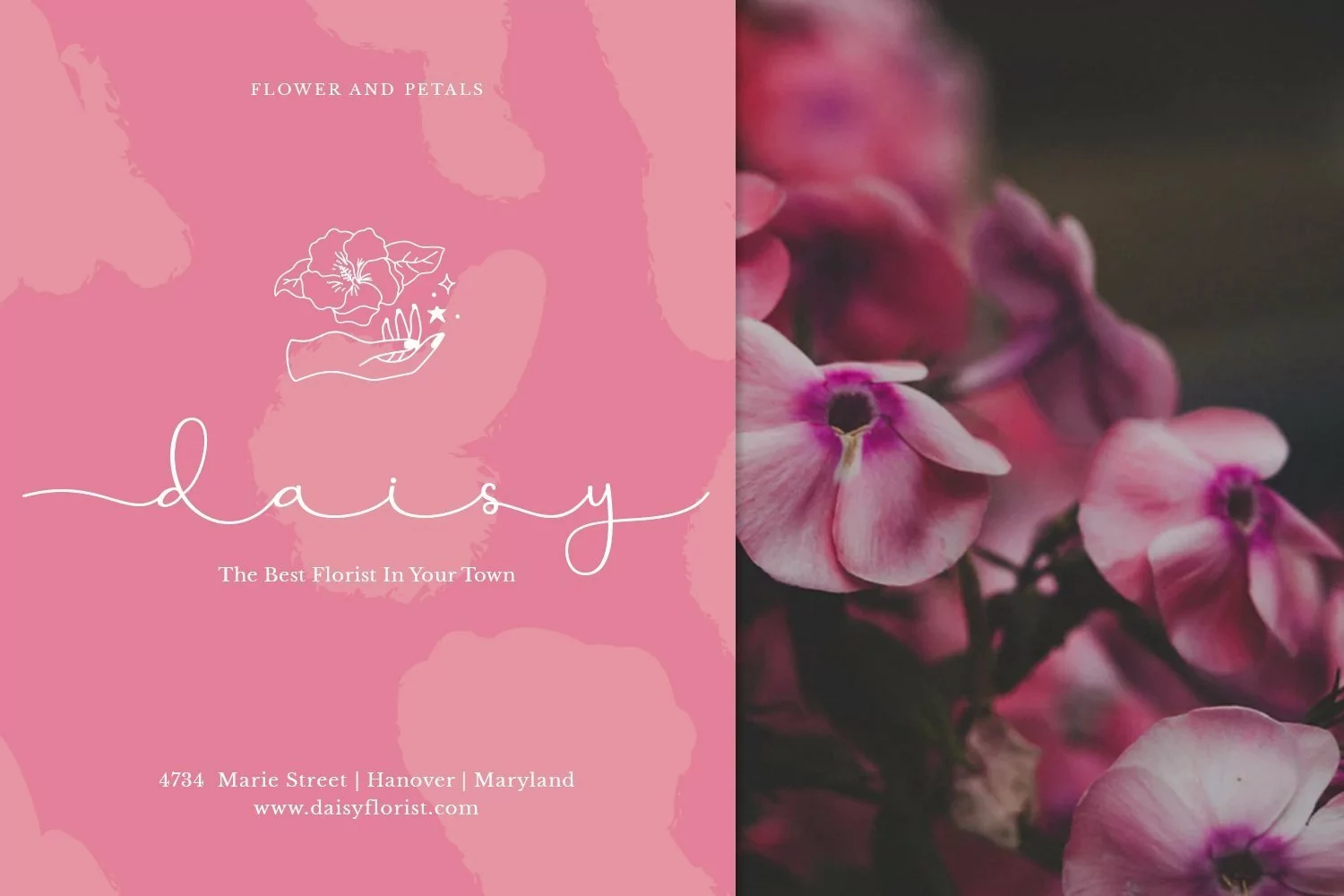
Web Font Hosta
Hosta is a script typeface. Perfect for display, poster, quotes, wedding needs, floral needs, craft needs, merchandise, signature, logotype, logo, business card and many more.